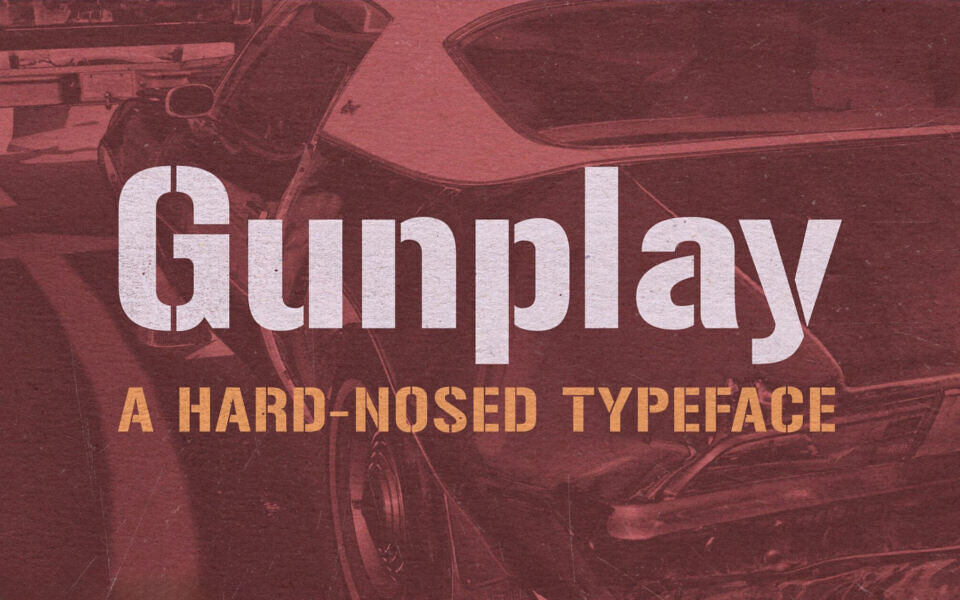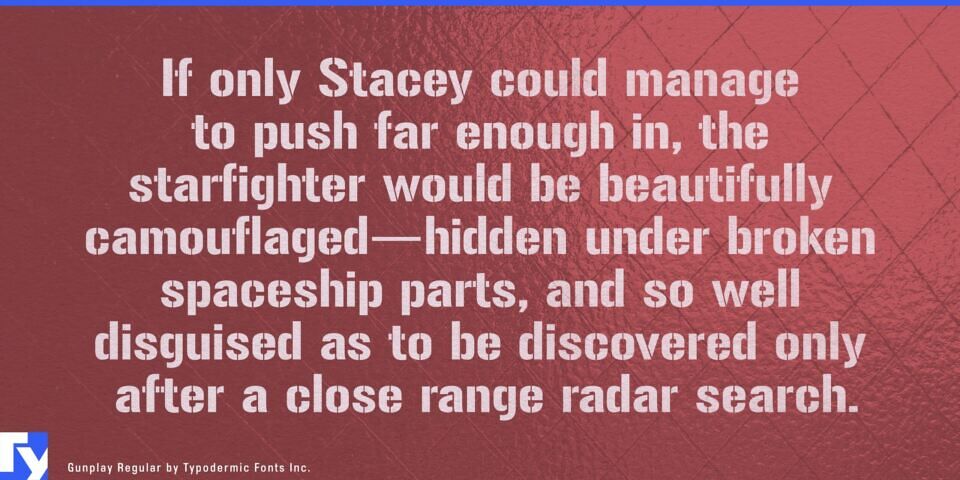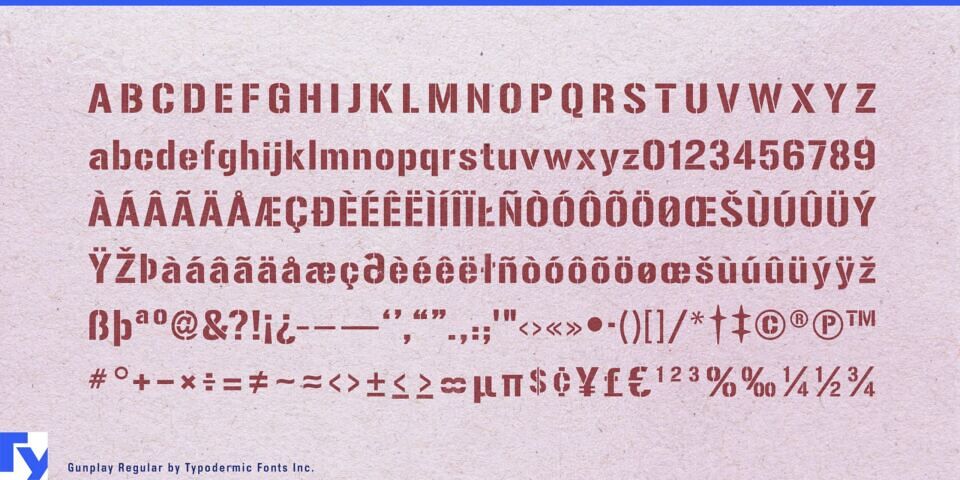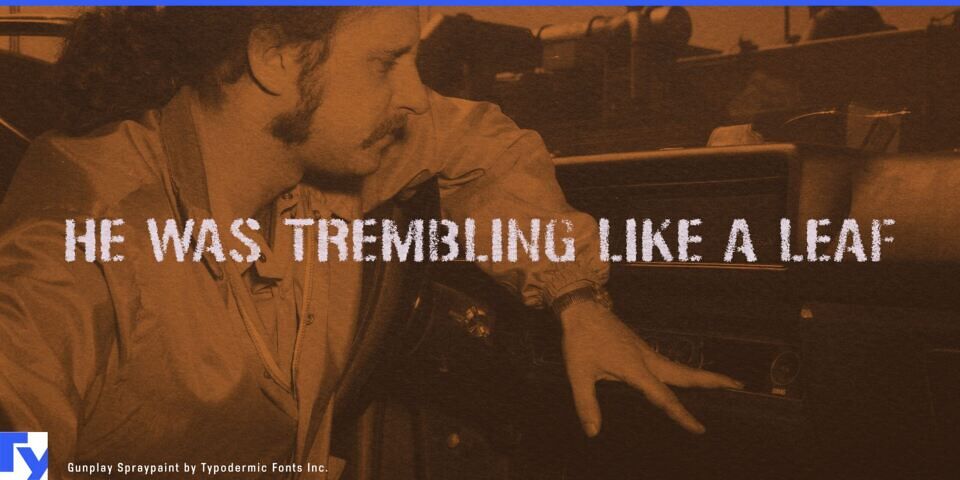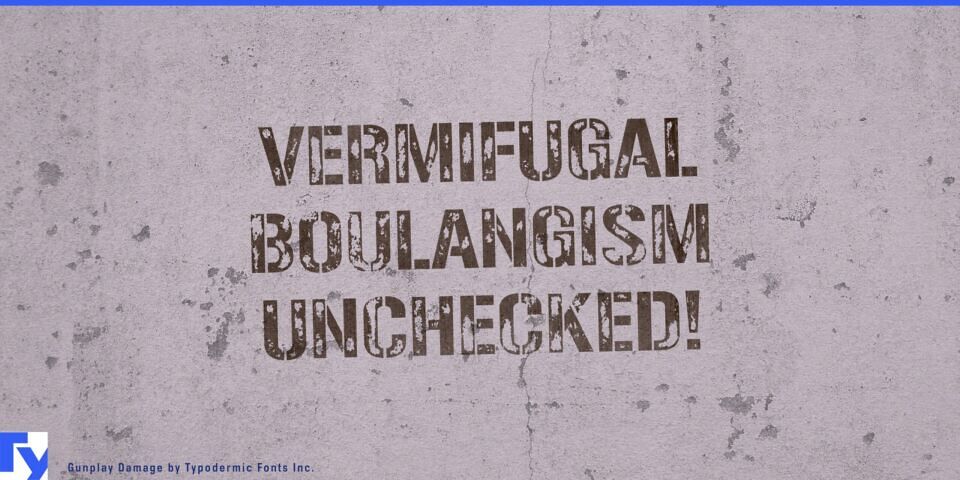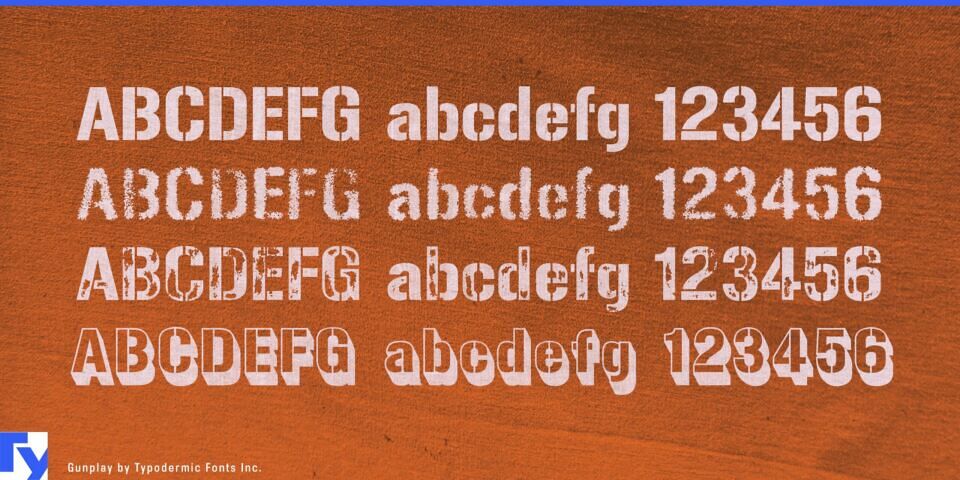
Gunplay is a tenacious stencil typeface inspired by the poster for the 1972 film The Getaway starring Steve McQueen and Ali MacGraw. This rugged-looking alphabet comes in three different special effect styles that will give your message a tough voice of authority.
Gunplay font doesn’t just sit on the page—it stakes its claim. Use it for branding, and watch as it transforms your logo into an icon of uncompromising strength. Deploy it in posters, and see how it commands attention like a rogue cop in a room full of suspects. From gritty urban streetwear to hard-hitting editorial design, Gunplay is the secret weapon in your typographic arsenal.